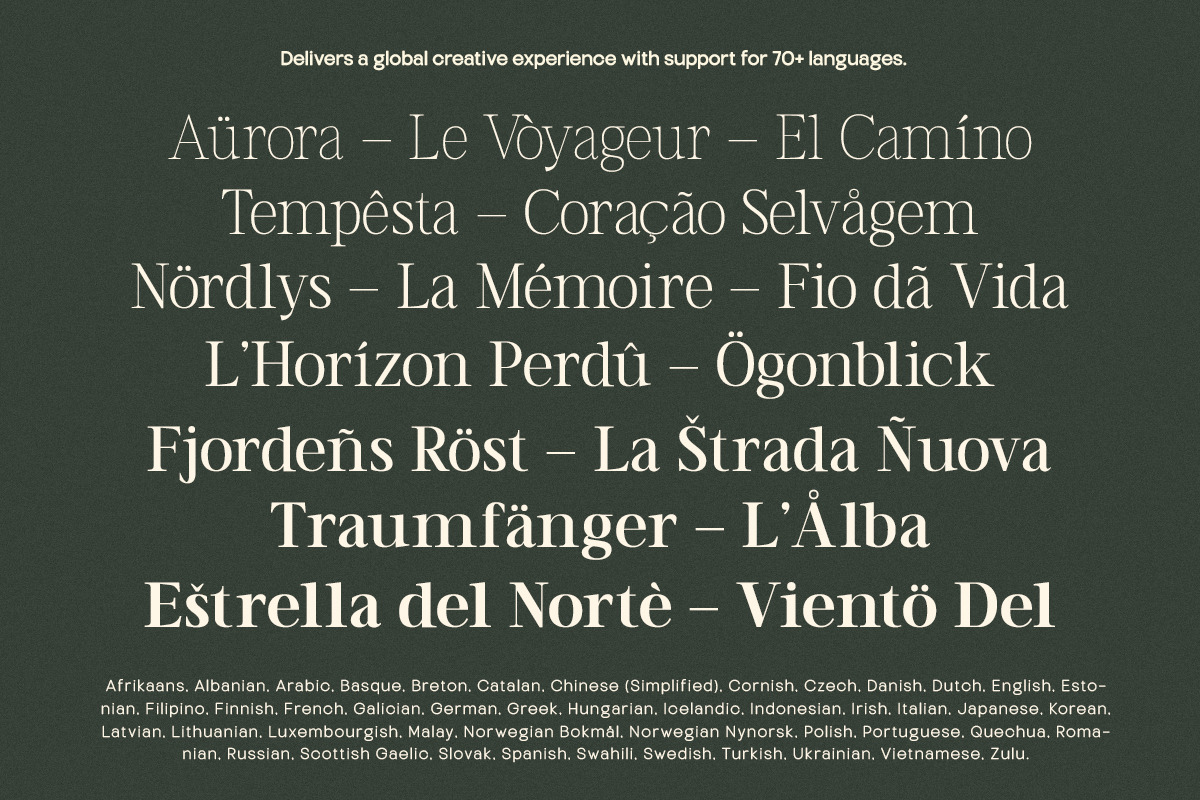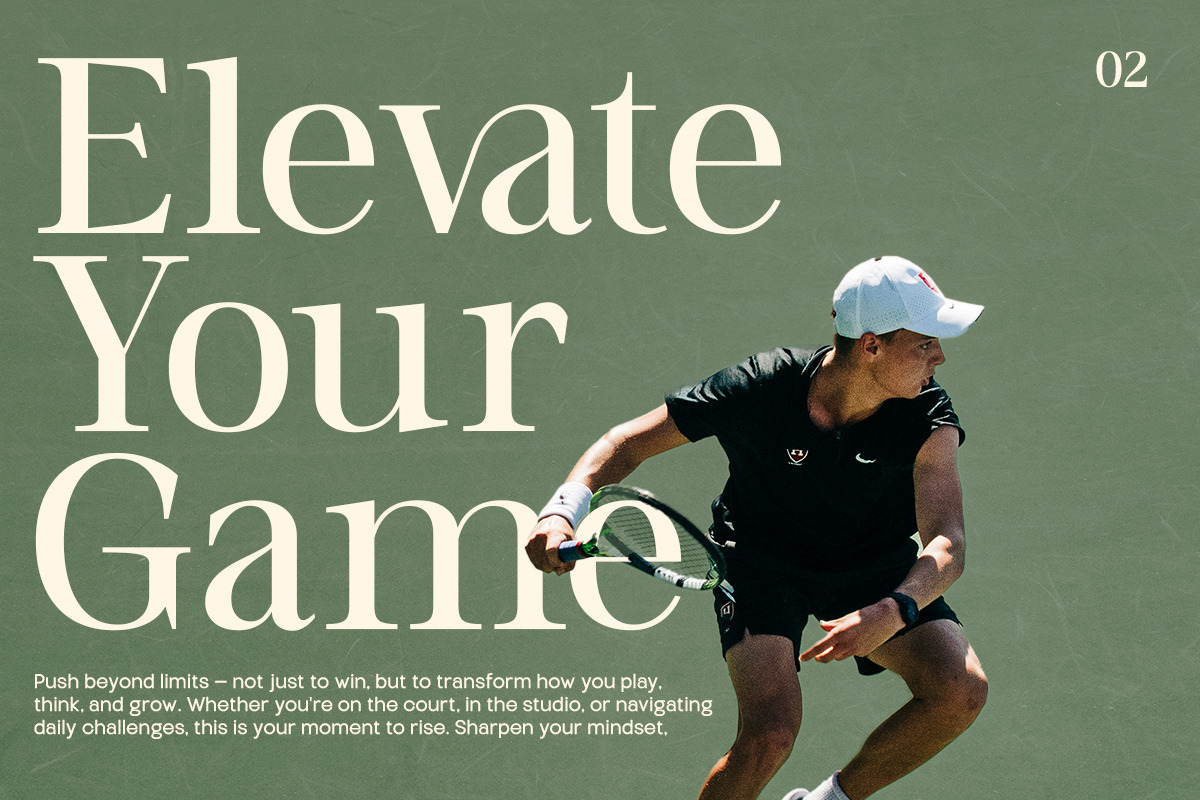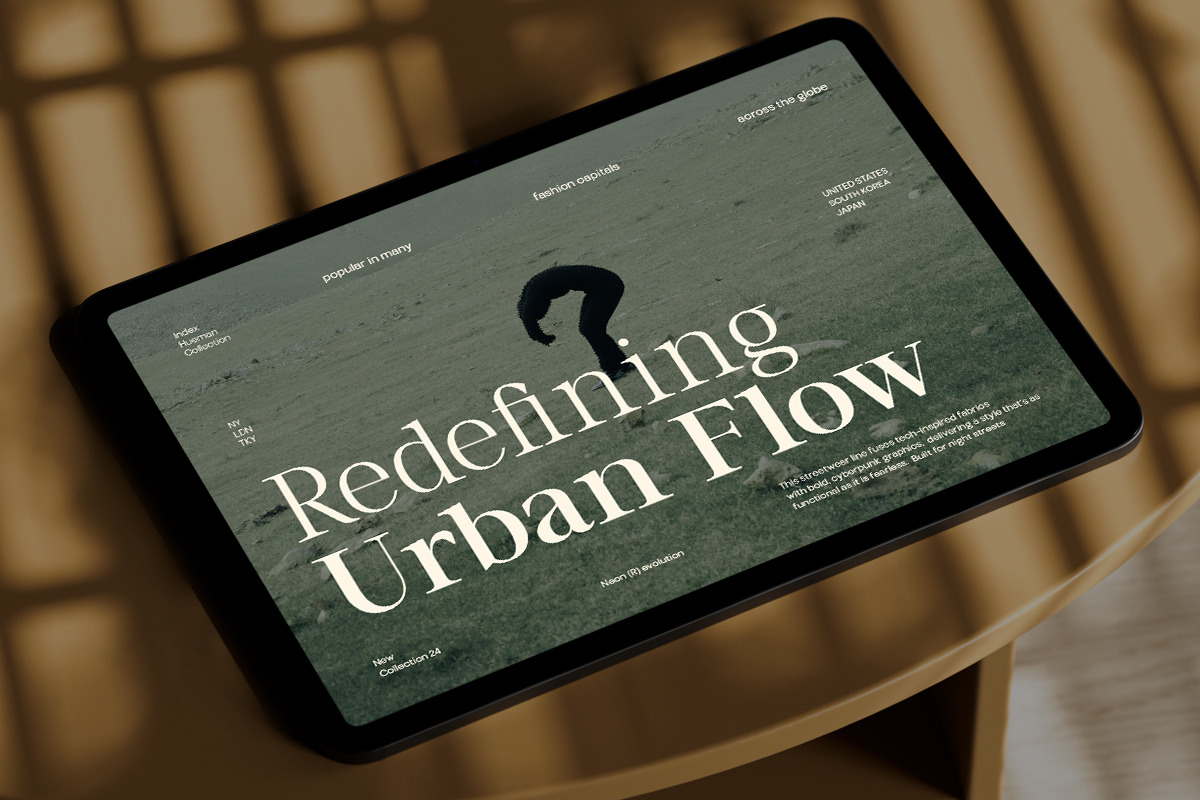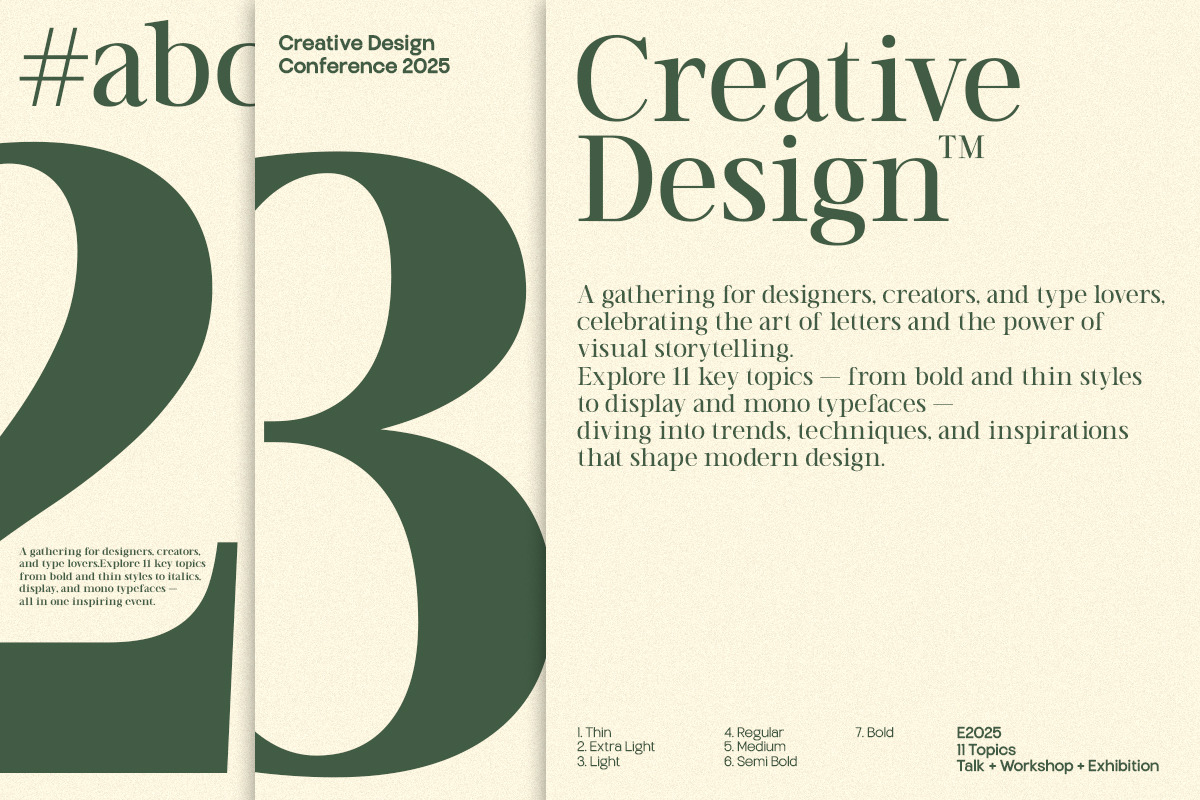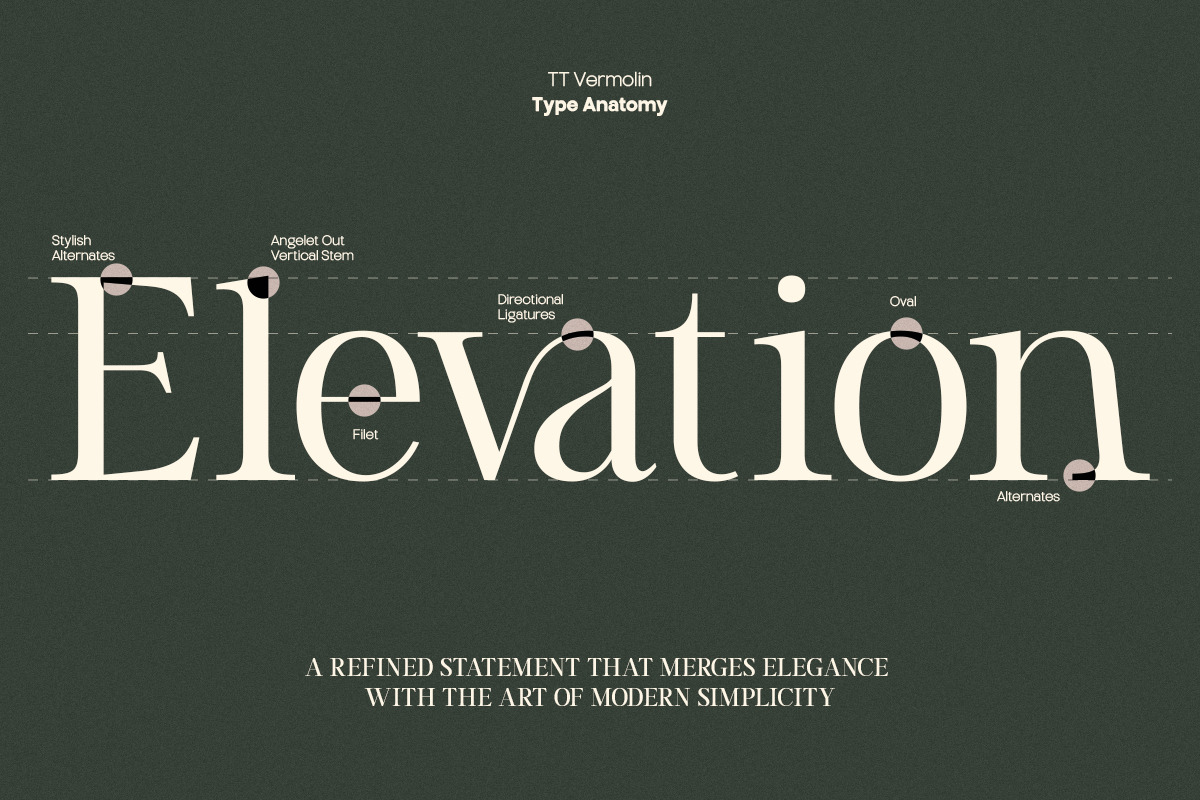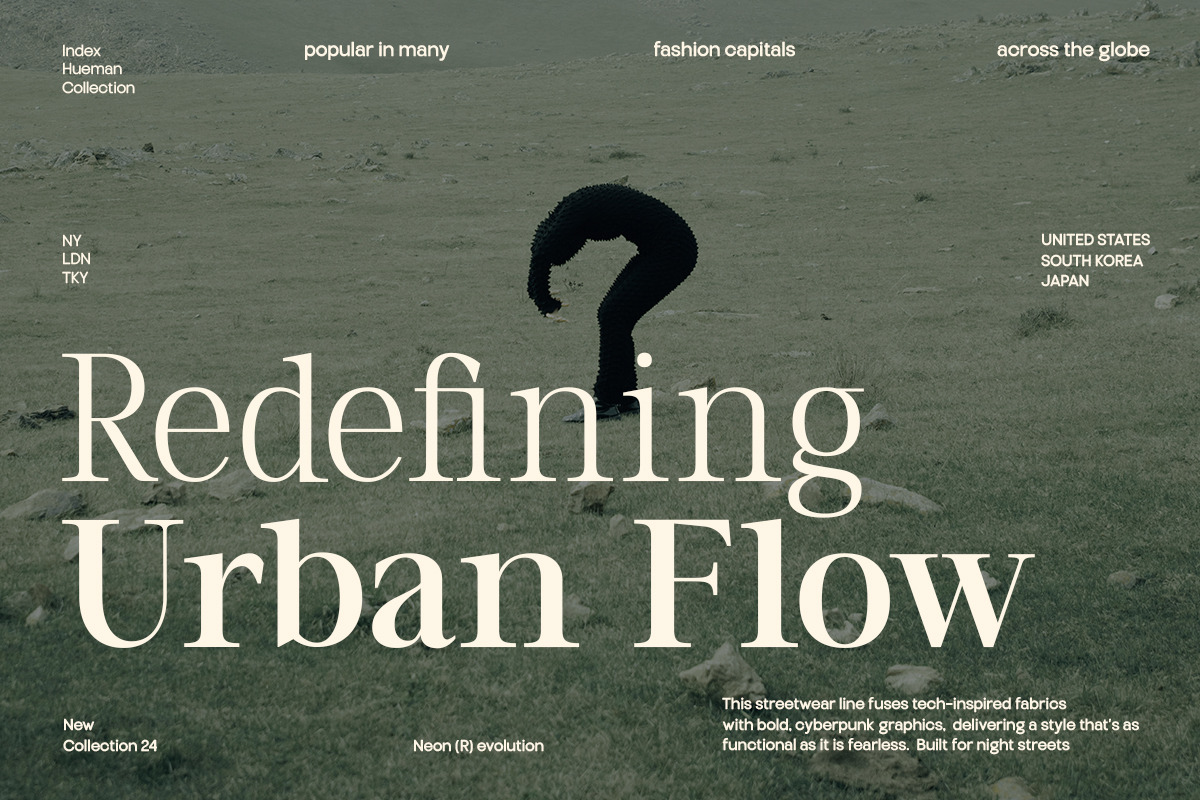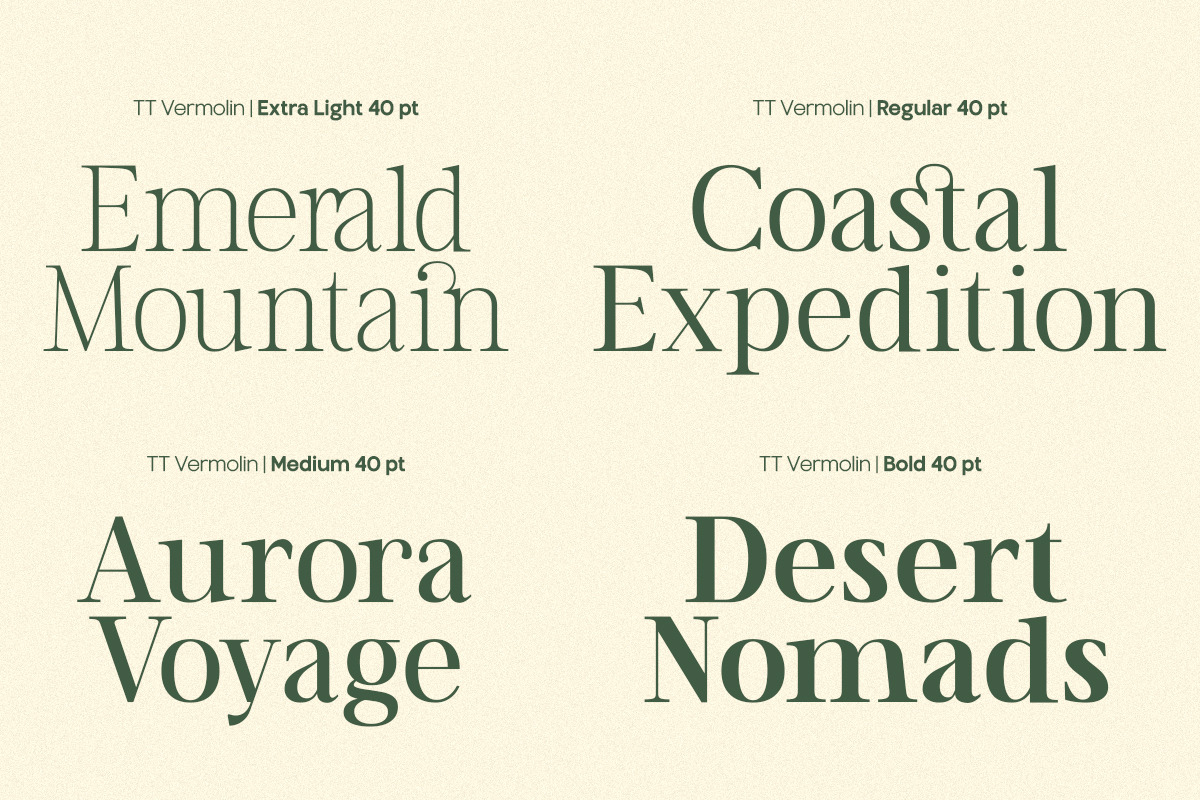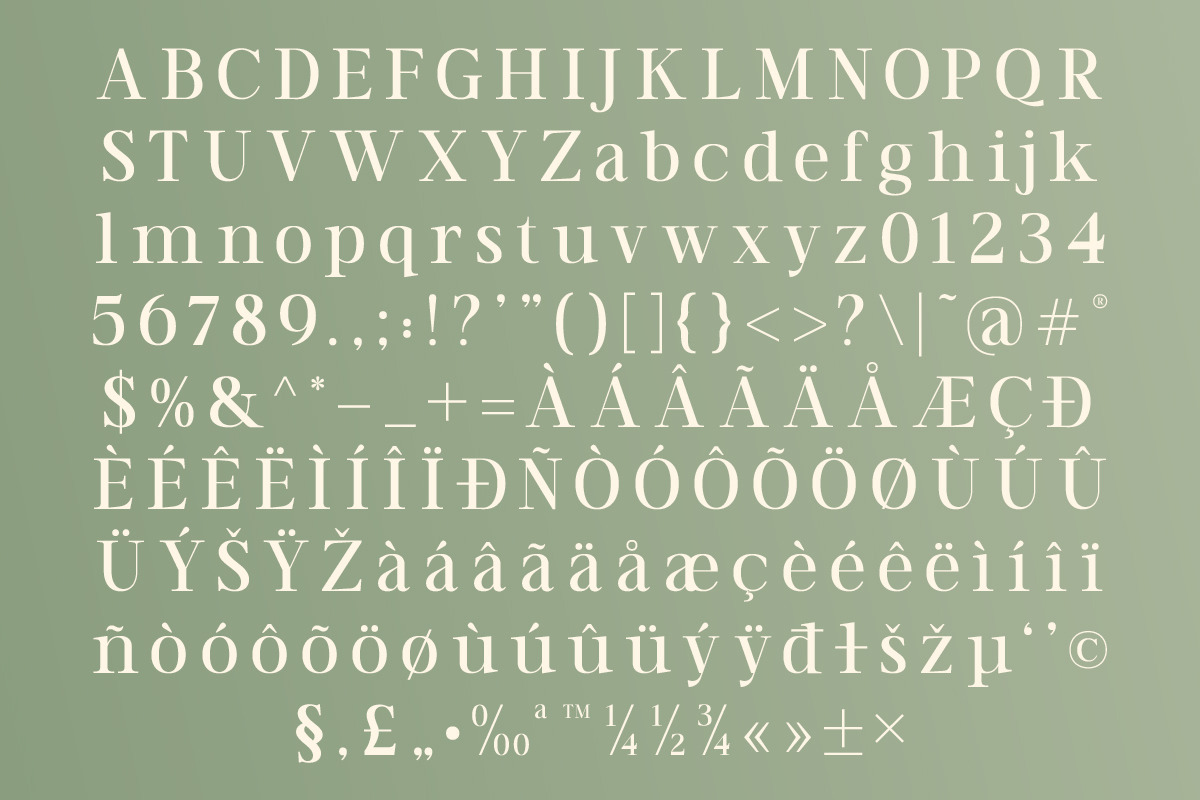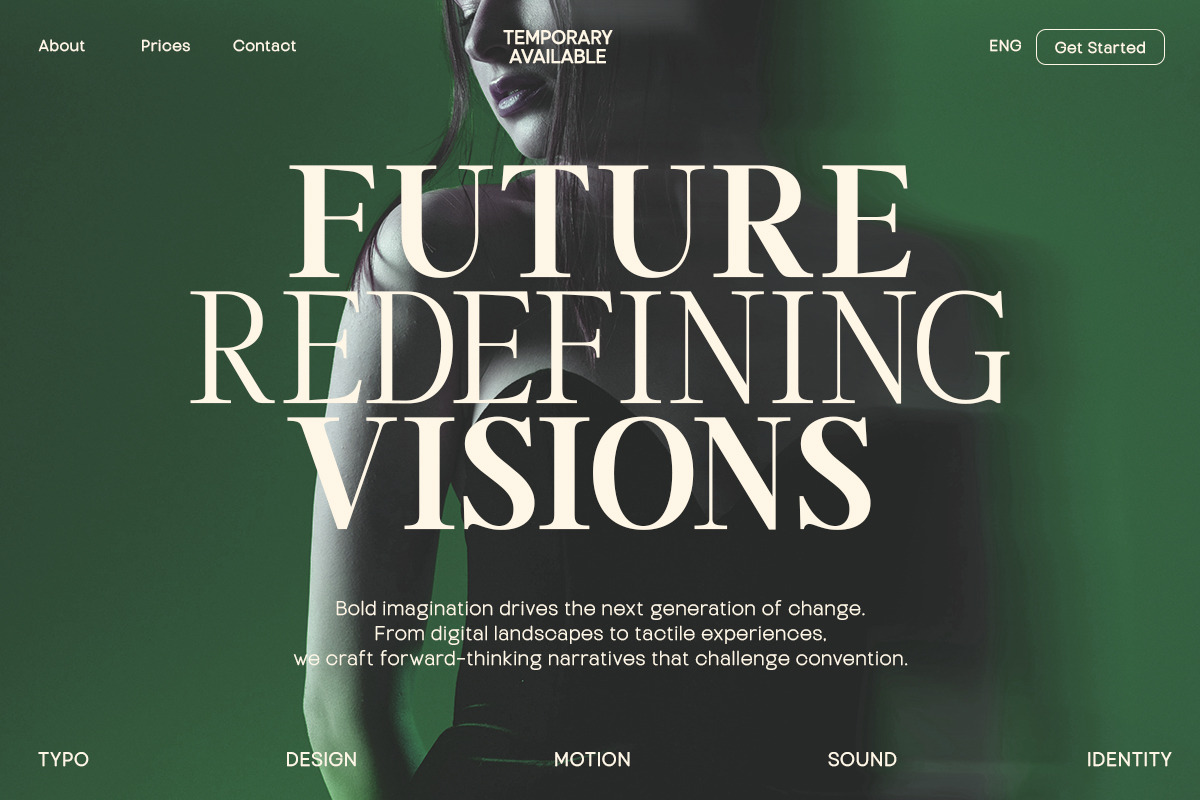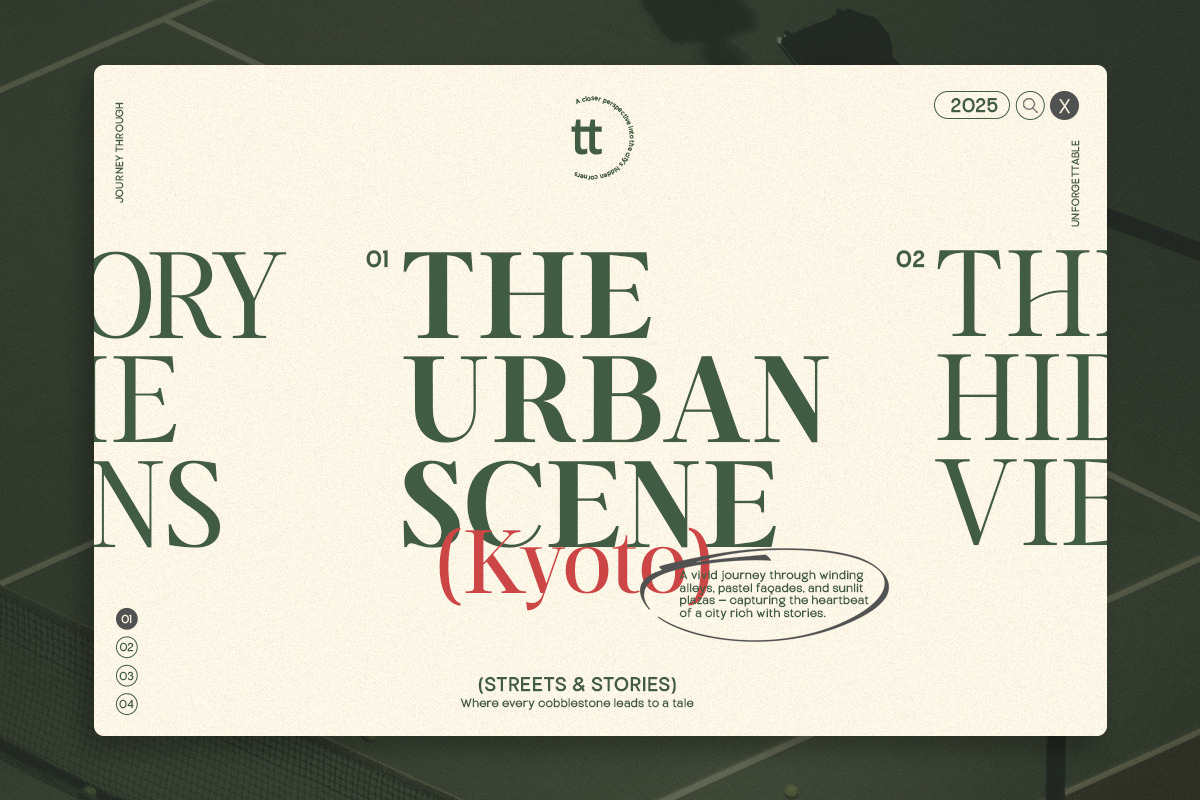
TT Vermolin — Modern Classy Serif
Vermolin is a refined serif typeface that captures timeless sophistication through its sharp contrasts, high vertical stress, and sculptural forms. Carefully crafted for both high readability and high impact, Vermolin thrives in editorial, branding, and luxury packaging settings. With elegant proportions and subtle details, each letterform is designed to exude confidence and clarity. Its generous x-height and slender stems make it ideal for both print and digital formats, giving your layouts an instant sense of prestige. This typeface includes: — Alternates to enhance stylistic expression — Custom ligatures for seamless, elegant text flow — Variable font support, enabling you to fine-tune weight and contrast — A full font family with multiple weights for flexible typographic systems
Whether used for headlines, magazine spreads, or graceful brand identities, Vermolin brings a distinct voice that feels both classic and contemporary.